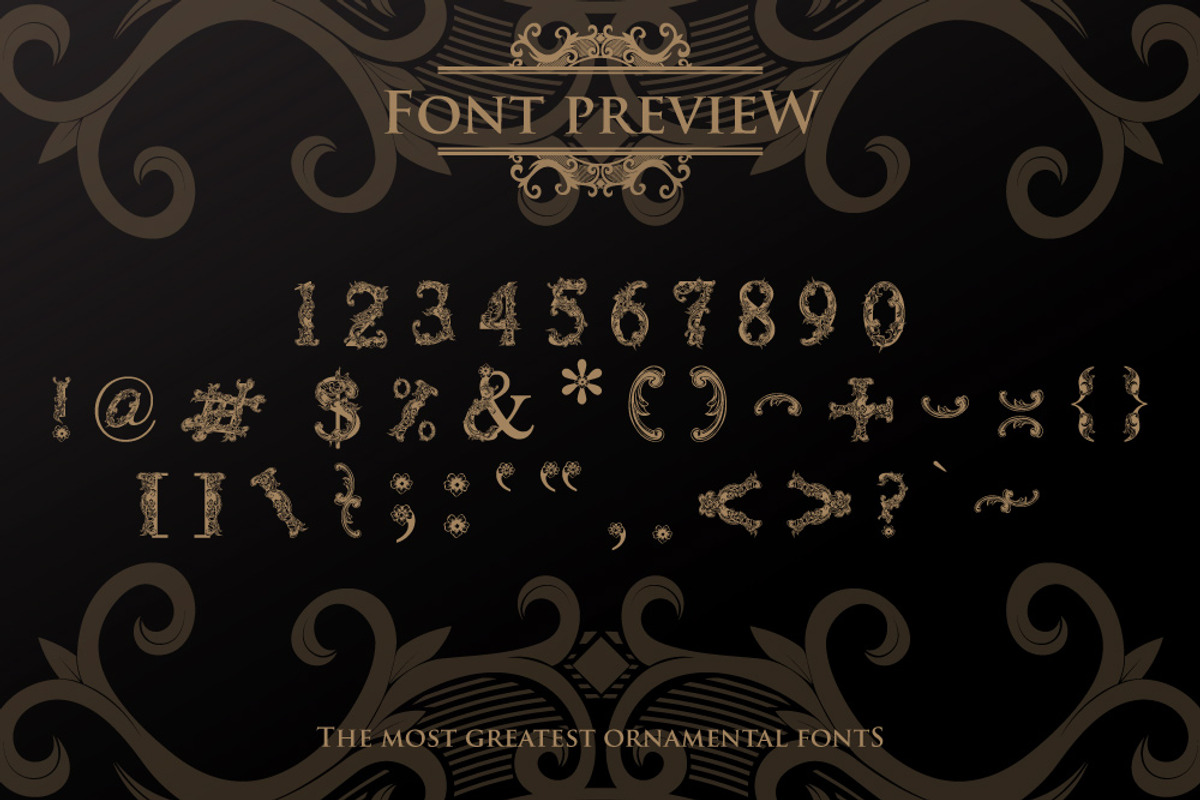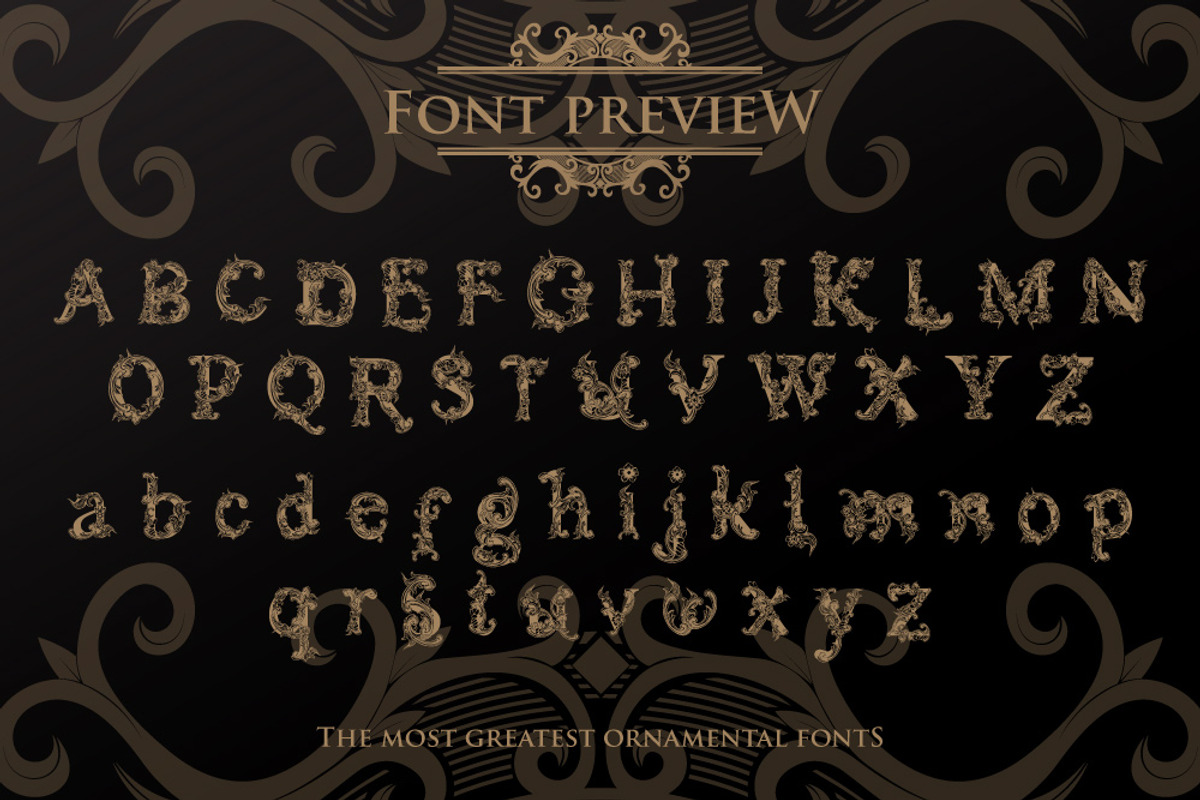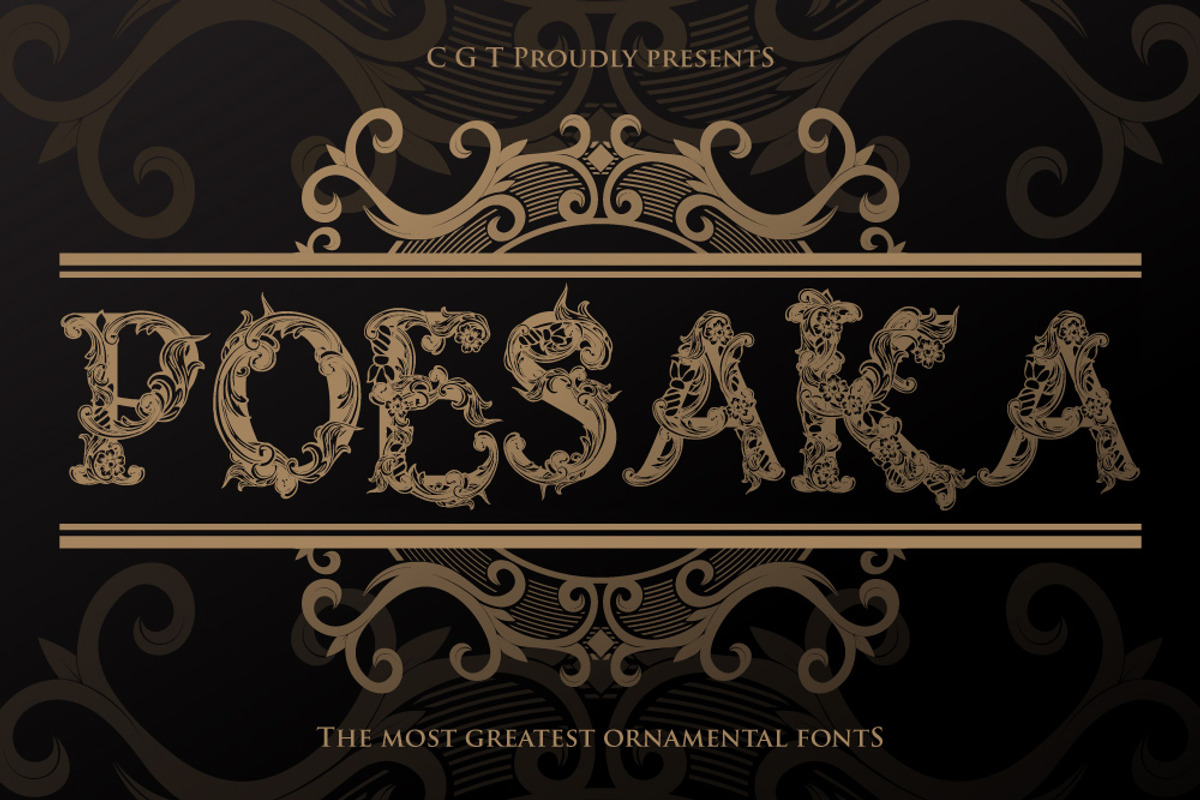
Poesaka II
Poesaka Typeface is a vintage display type. It suitable for any vintage type needs and more Happy creating.Very suitable for you who do exploration